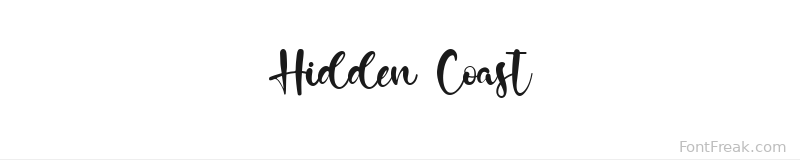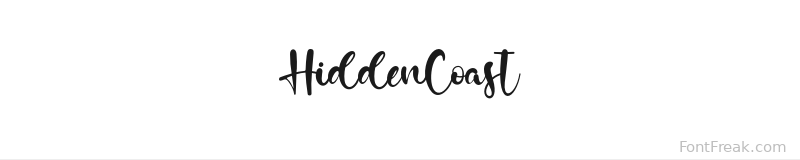
HiddenCoast
Hidden Coast
HiddenCoast by Kong Font is a captivating display typeface that combines elegance with a touch of whimsy. This font, released in 2021, features a unique handwritten style that gives it a personal and inviting feel. The strokes are fluid and slightly varied in weight, creating a charming contrast that draws attention without overwhelming the viewer. The spacing is thoughtfully designed, ensuring legibility while maintaining a relaxed flow, making it ideal for various creative projects.
The visual characteristics of HiddenCoast include playful curves and a mix of thick and thin lines, which contribute to its dynamic appearance. This font is perfect for a range of applications, including wedding invitations that seek an intimate and romantic touch, movie posters aiming for a bold and eye-catching design, and restaurant menus that want a friendly yet sophisticated vibe. Additionally, it can enhance branding for small businesses looking to stand out in a crowded market, as well as for content creators who wish to add a personal flair to their digital projects.
The target audience for HiddenCoast includes graphic designers, small business owners, and content creators who appreciate the balance of creativity and professionalism in their designs. This font is particularly appealing to those who want to convey warmth and approachability in their visual communications.